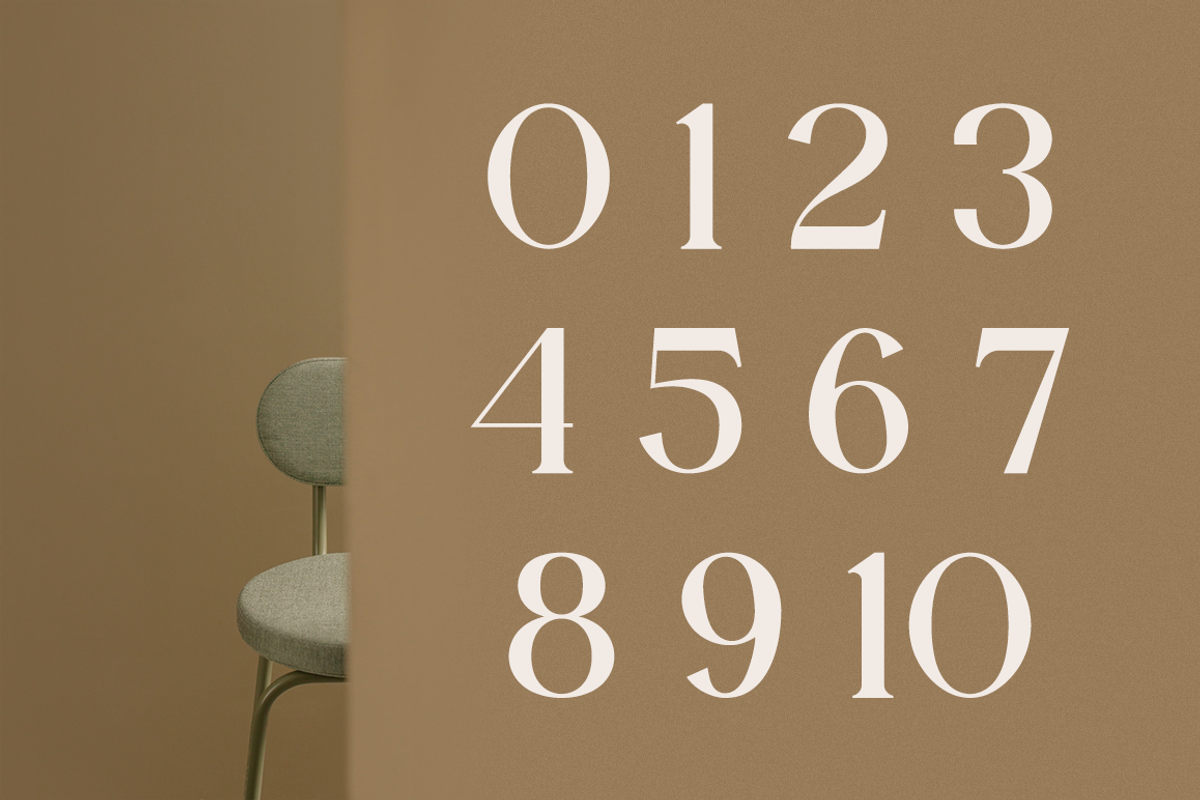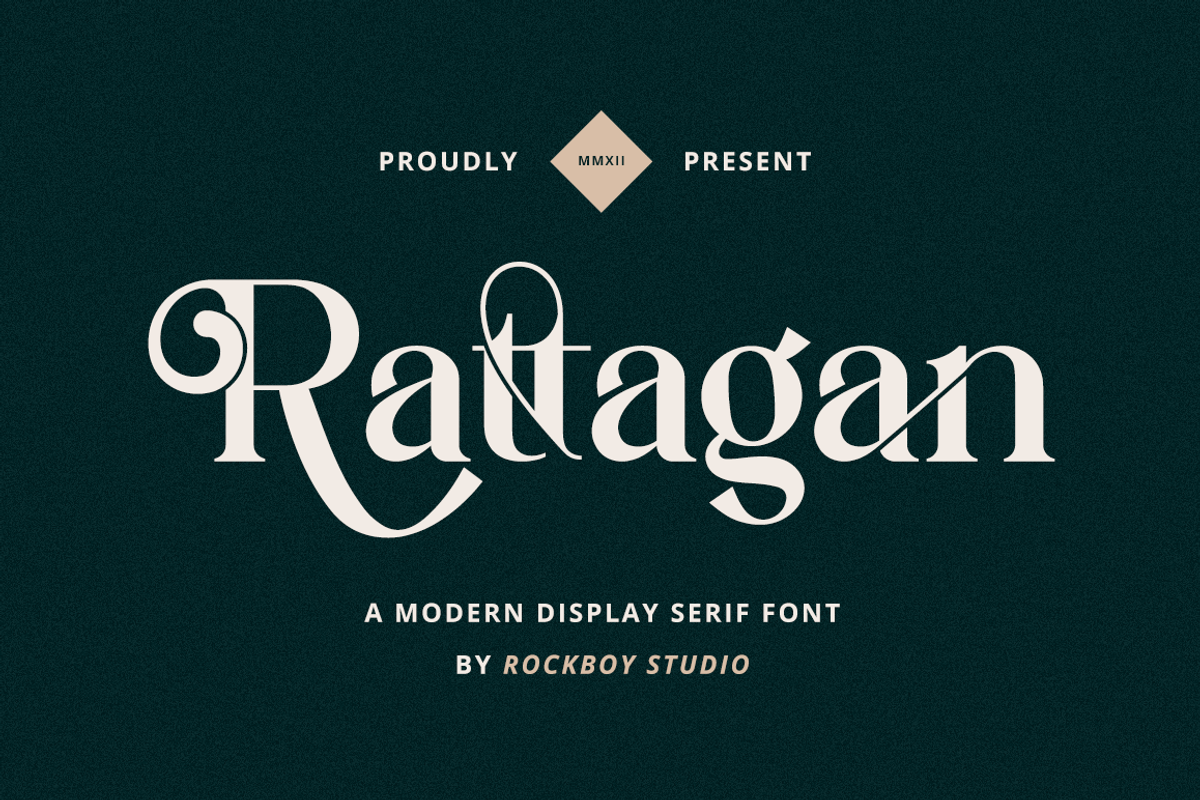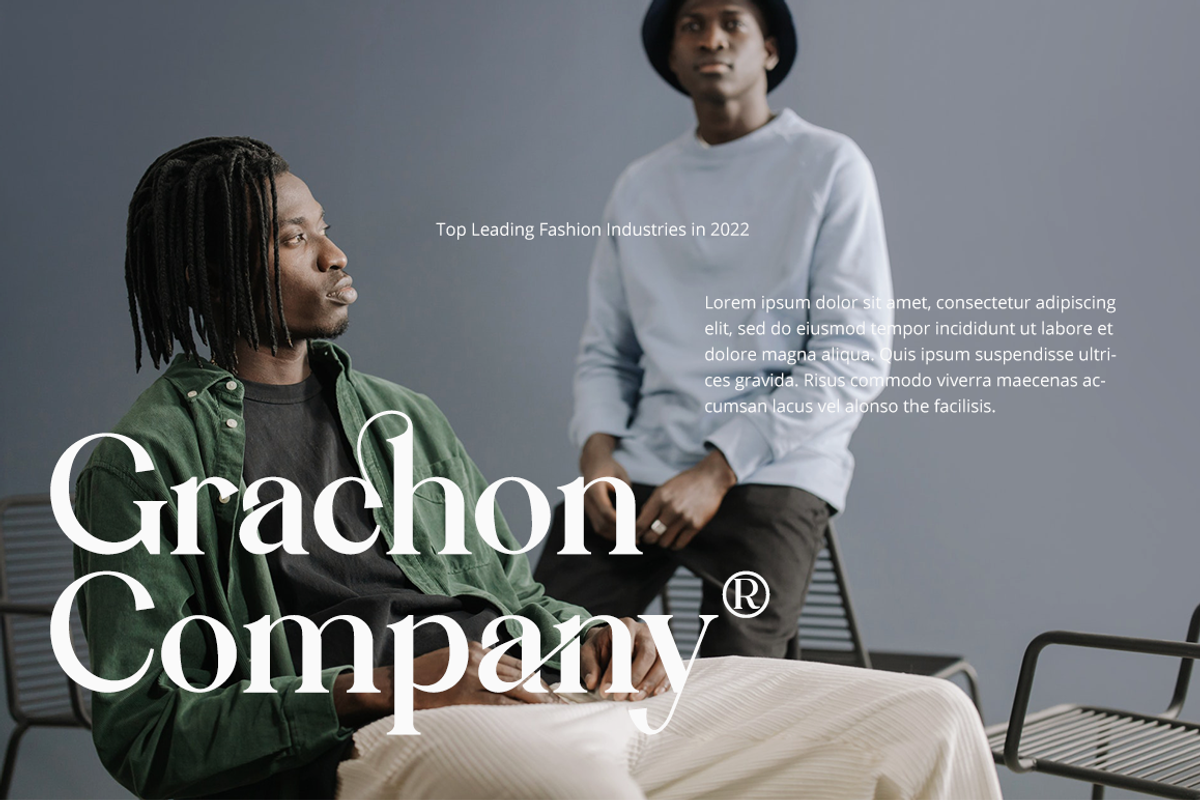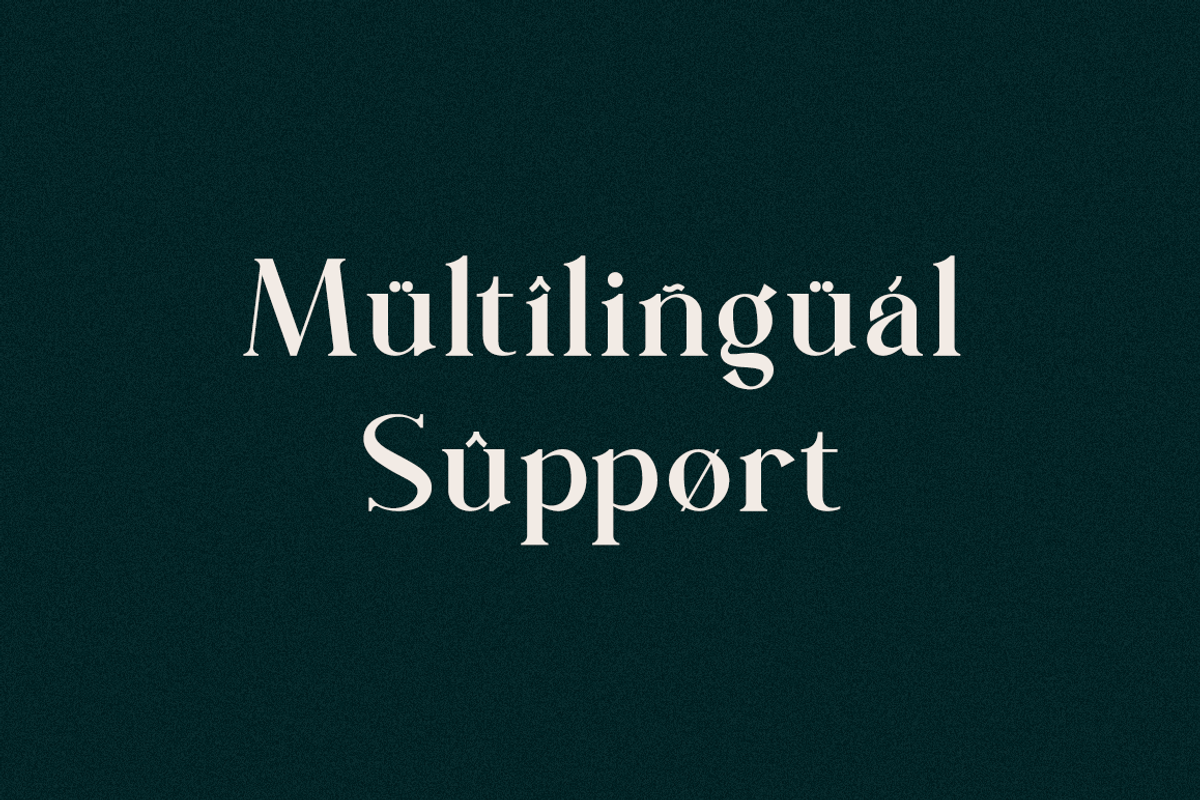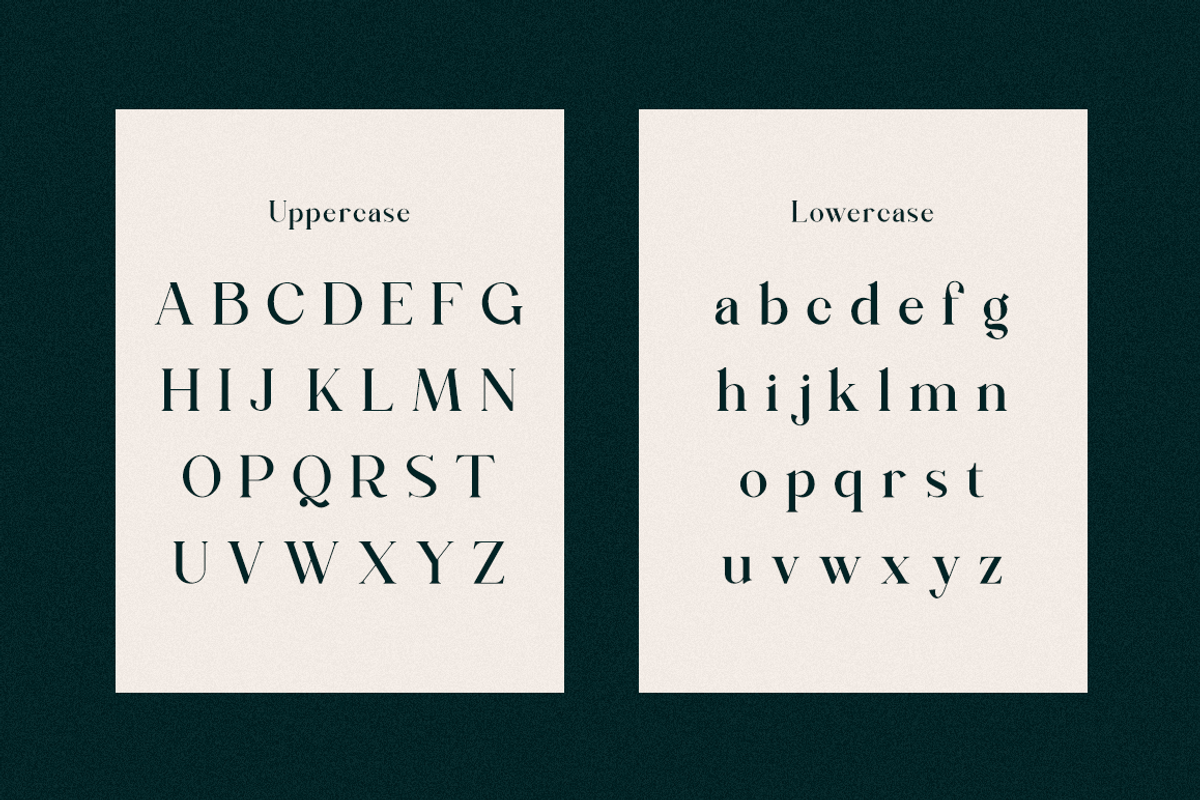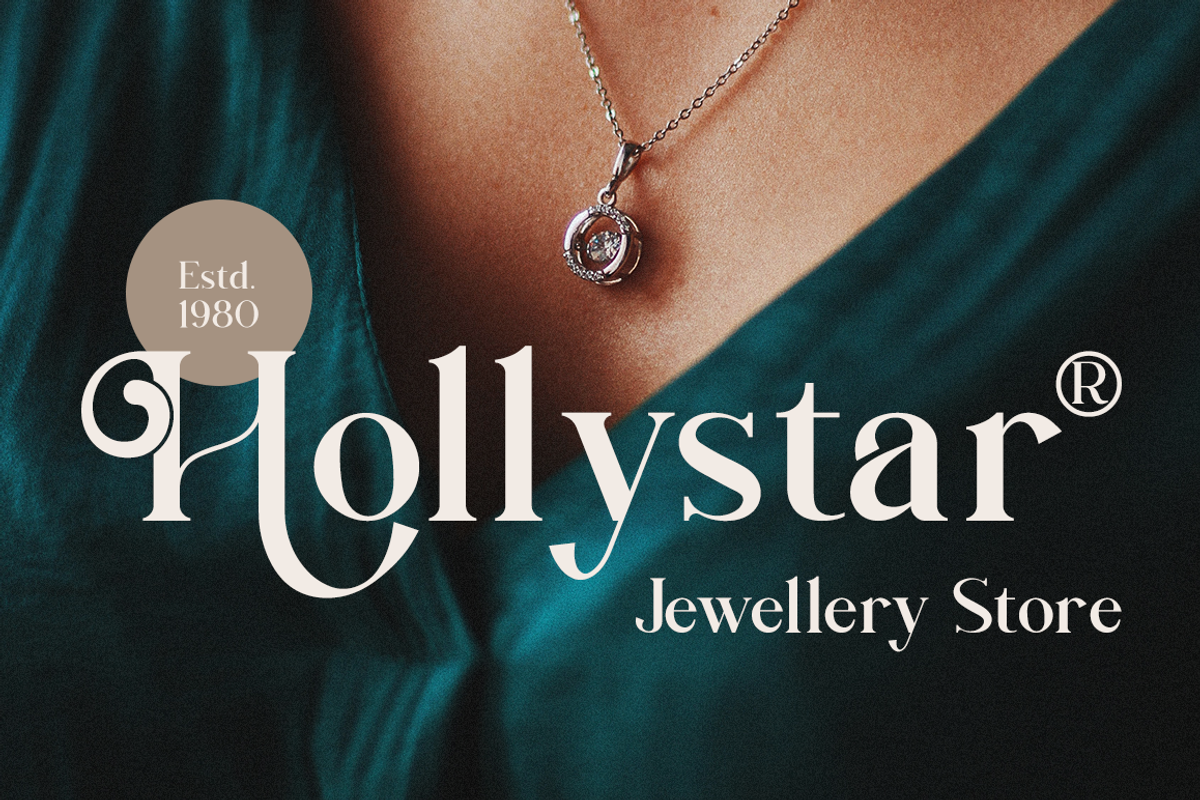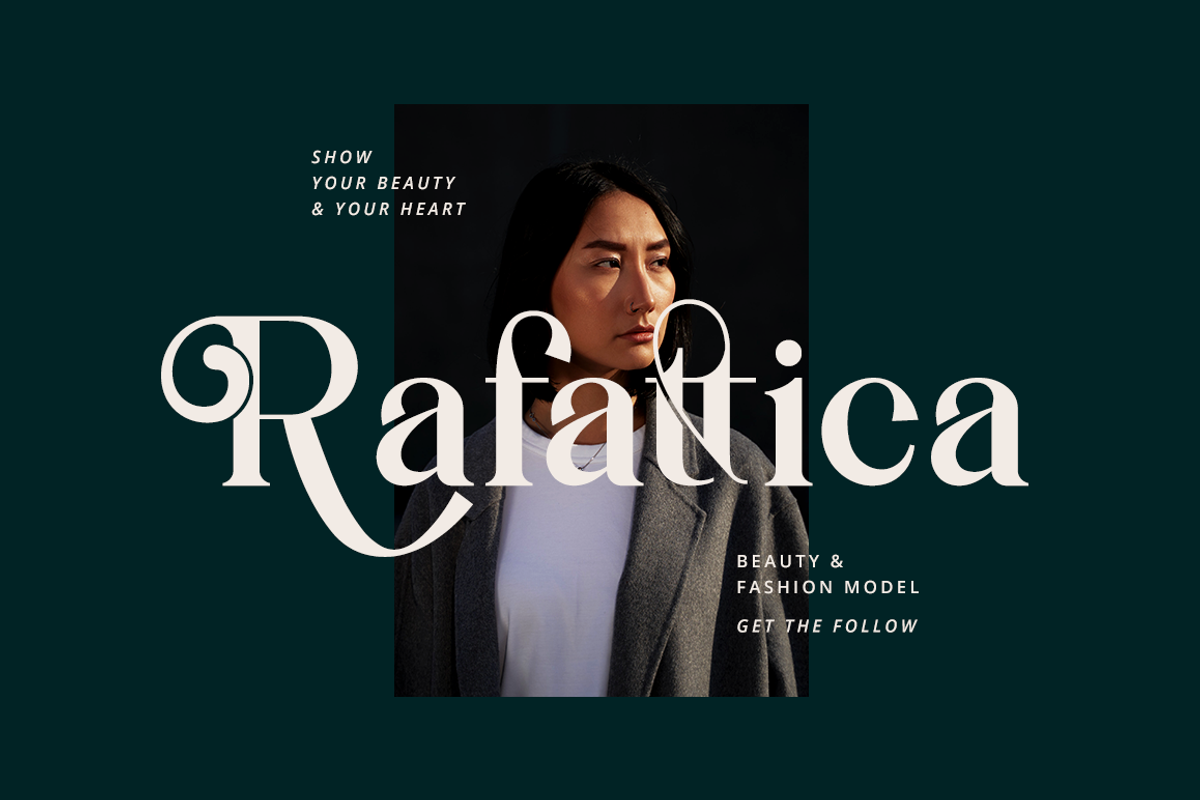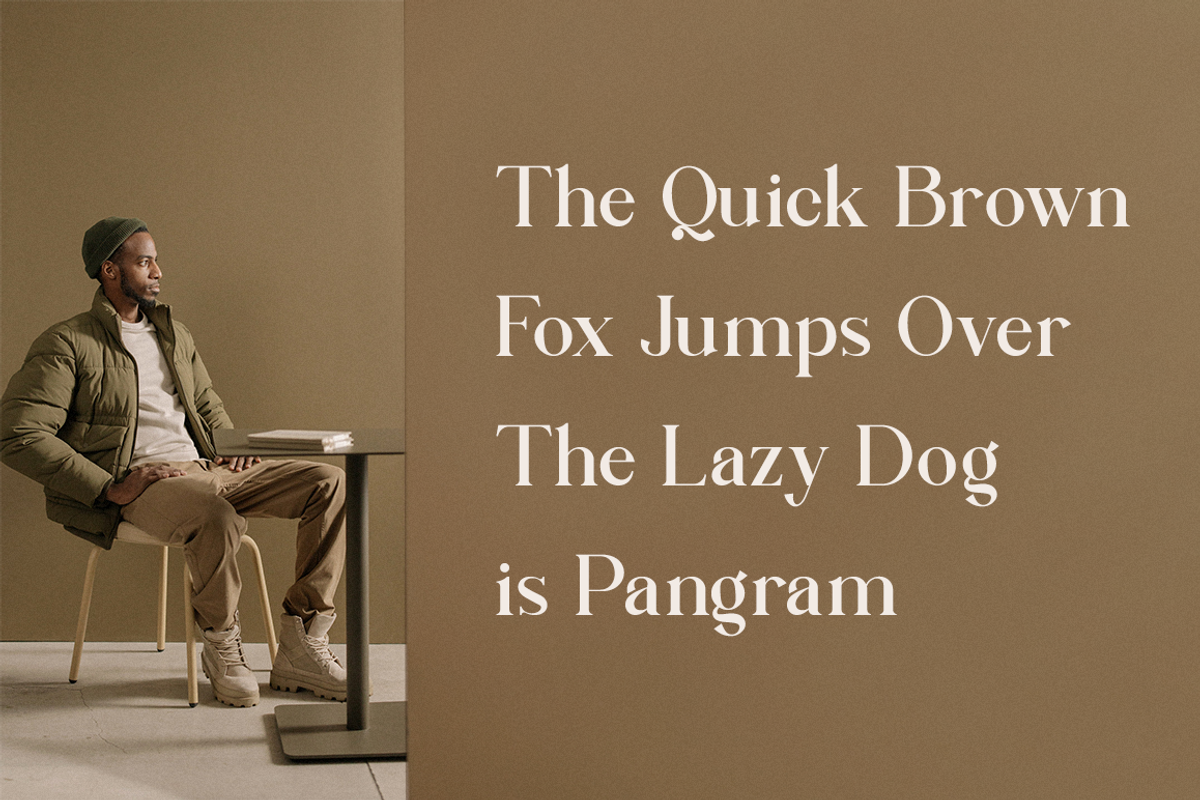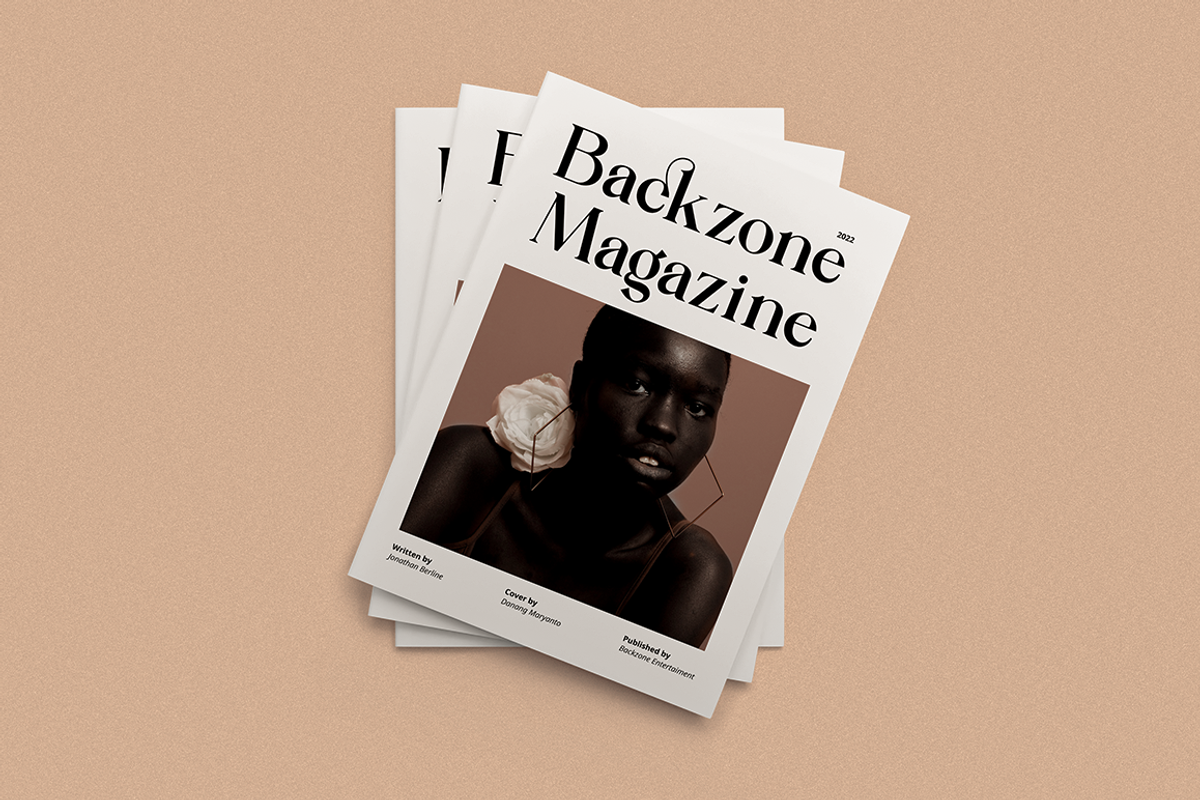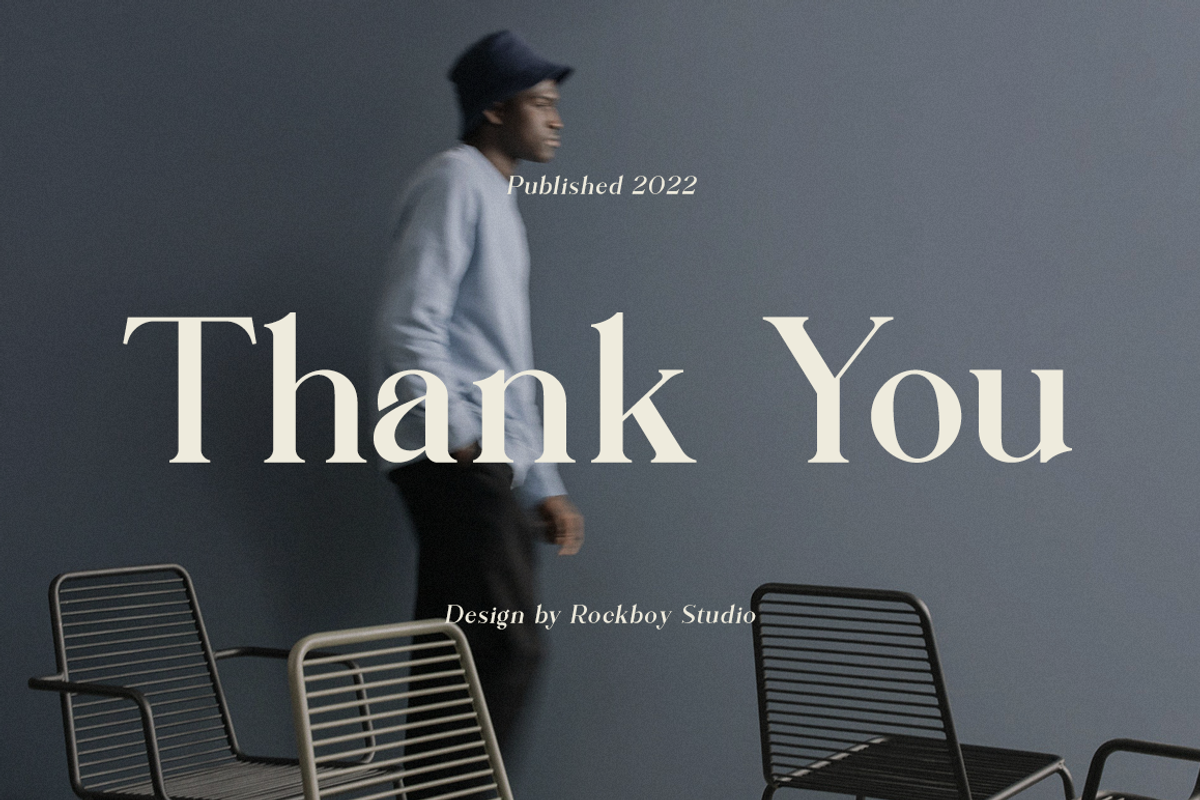
Rattagan - Display Serif Font
Rattagan is an elegant and distinct serif font. Suitable for a wide variety of designs due to its neat and simple style, this font has the potential to become your favorite go-to font, no matter the occasion!